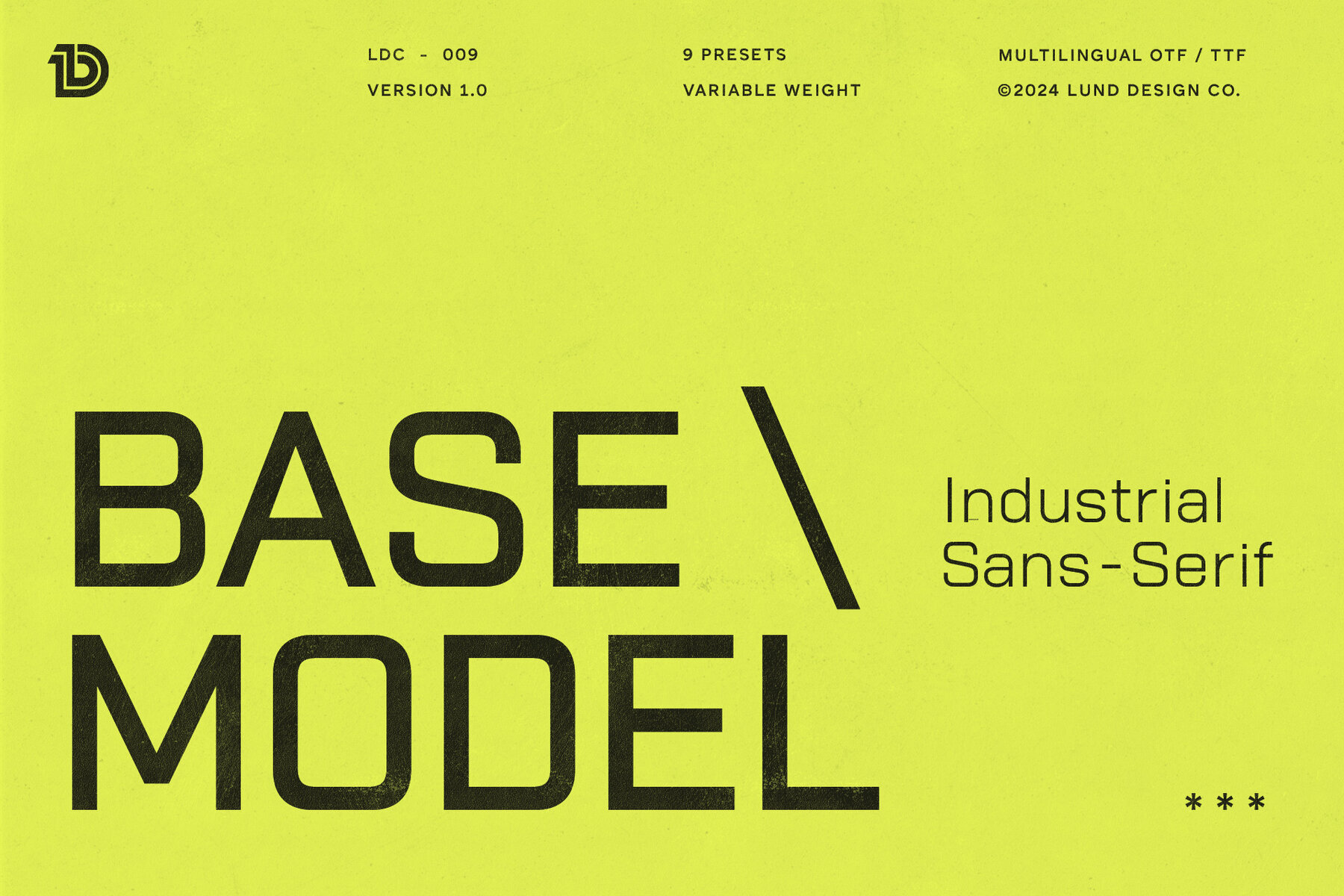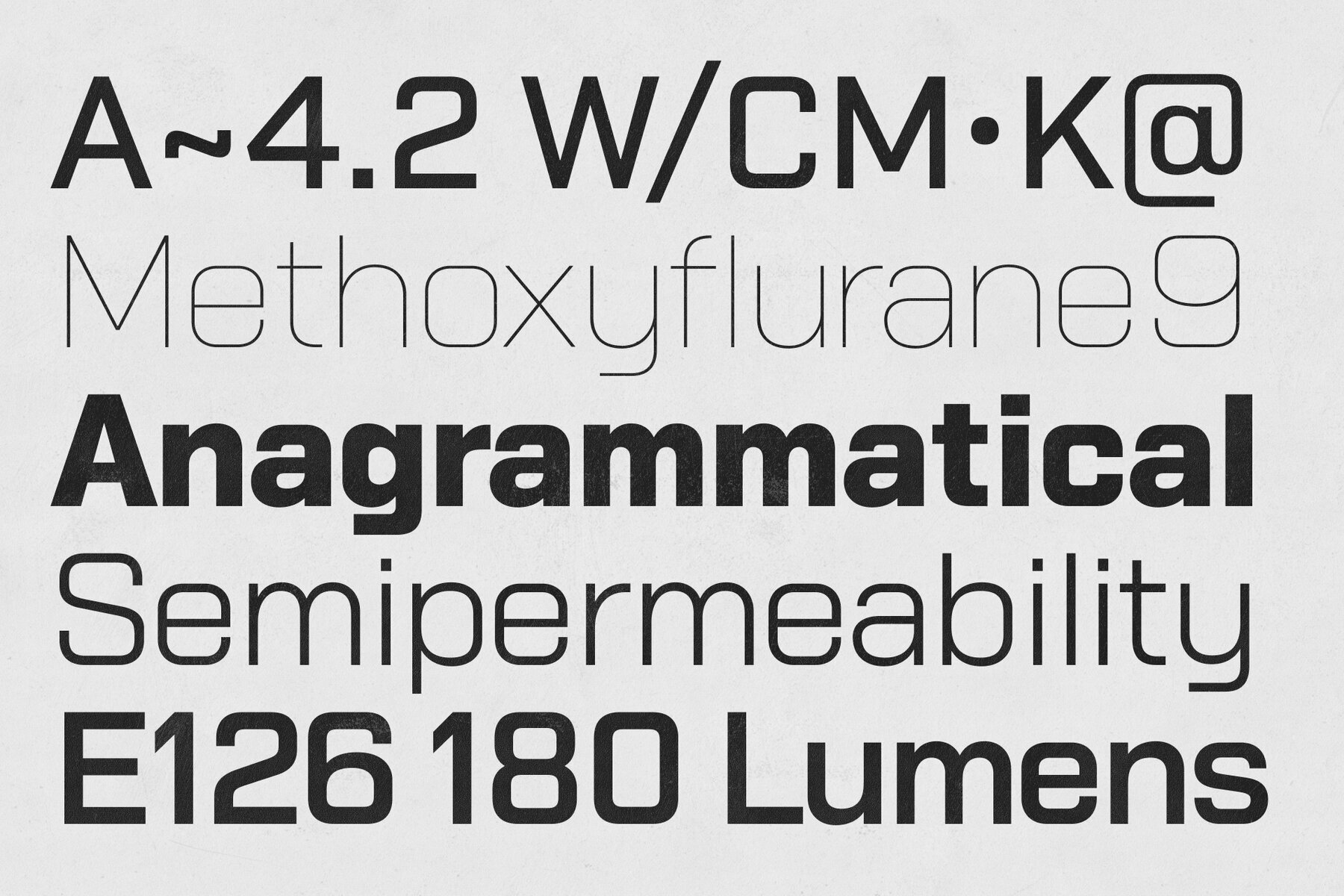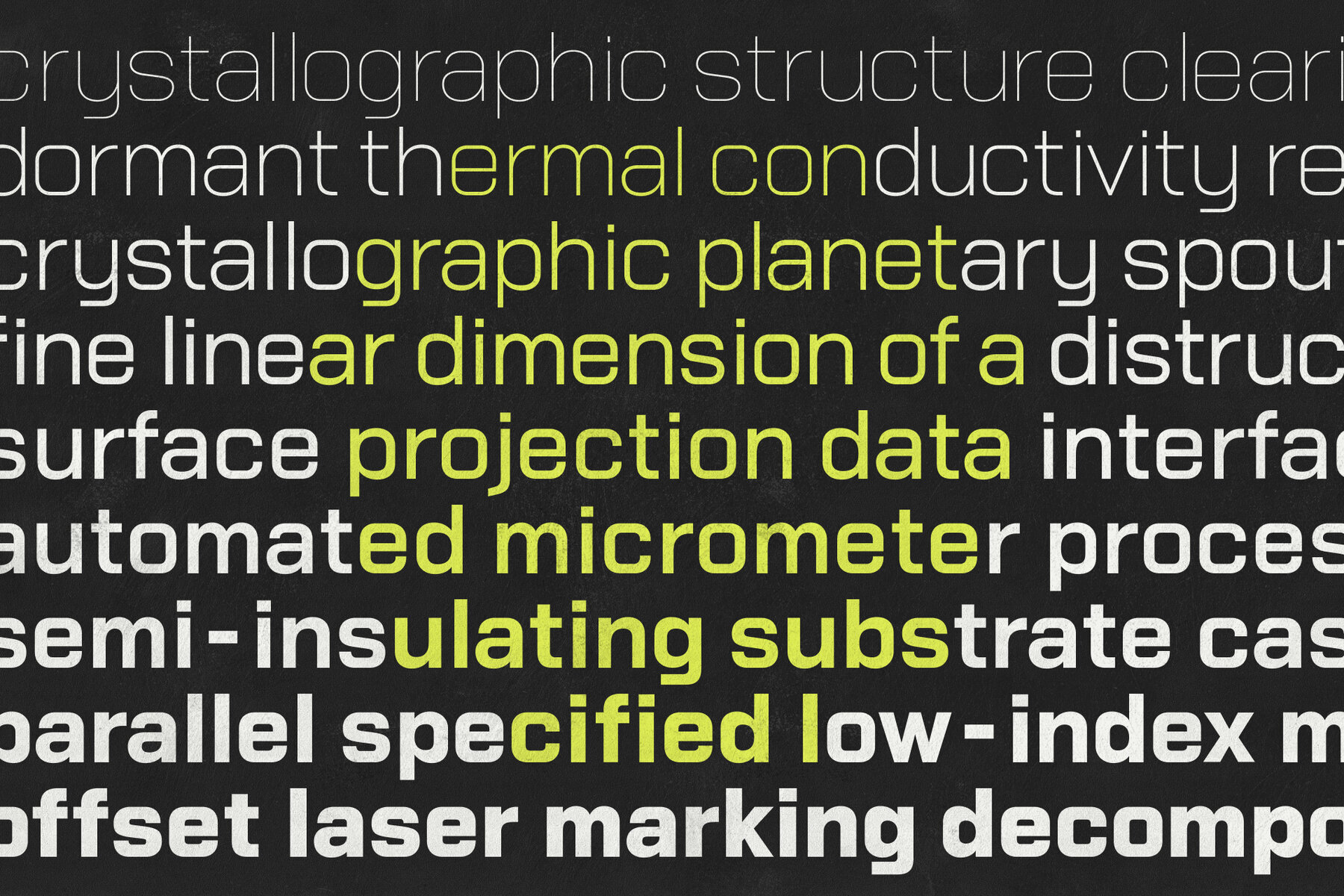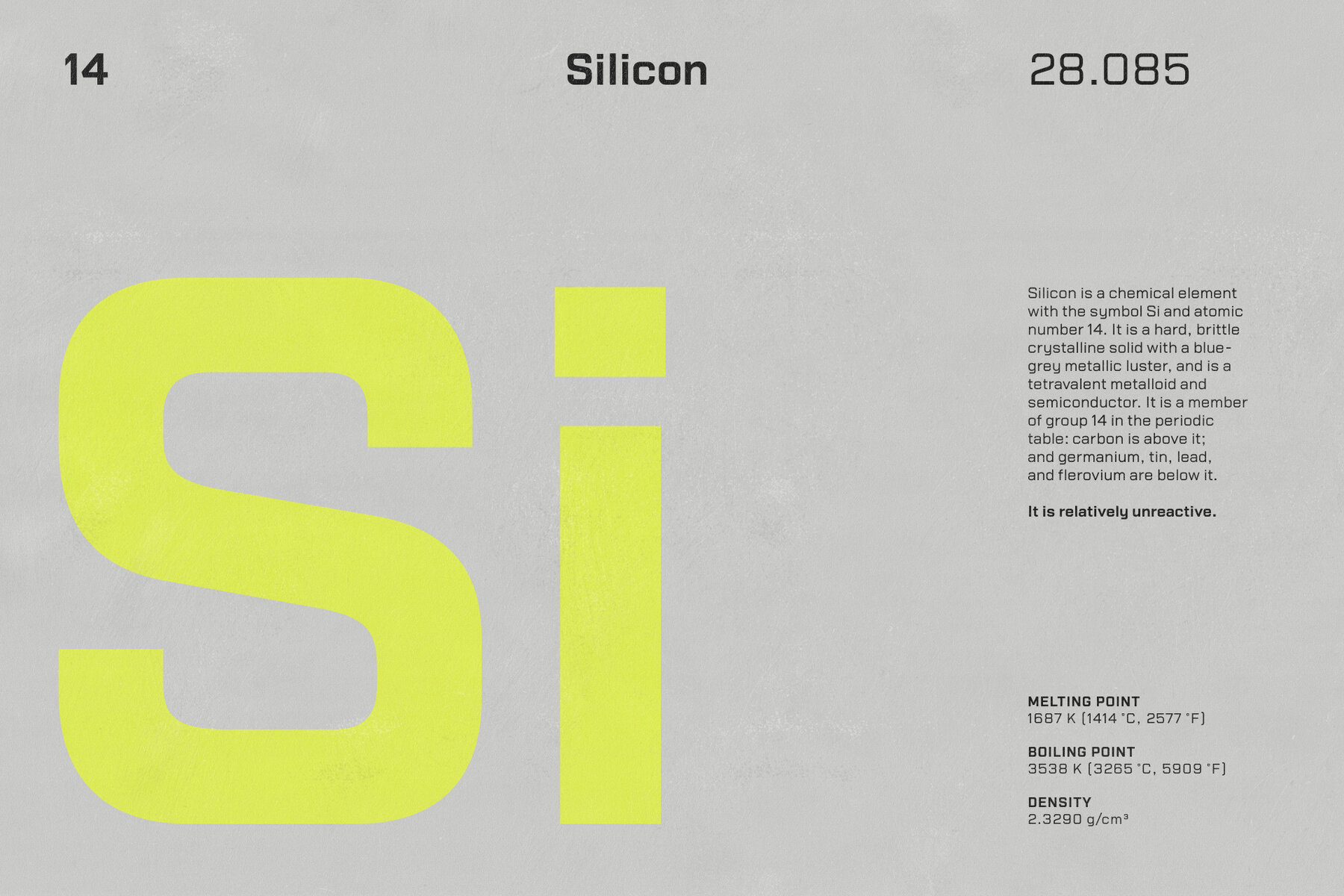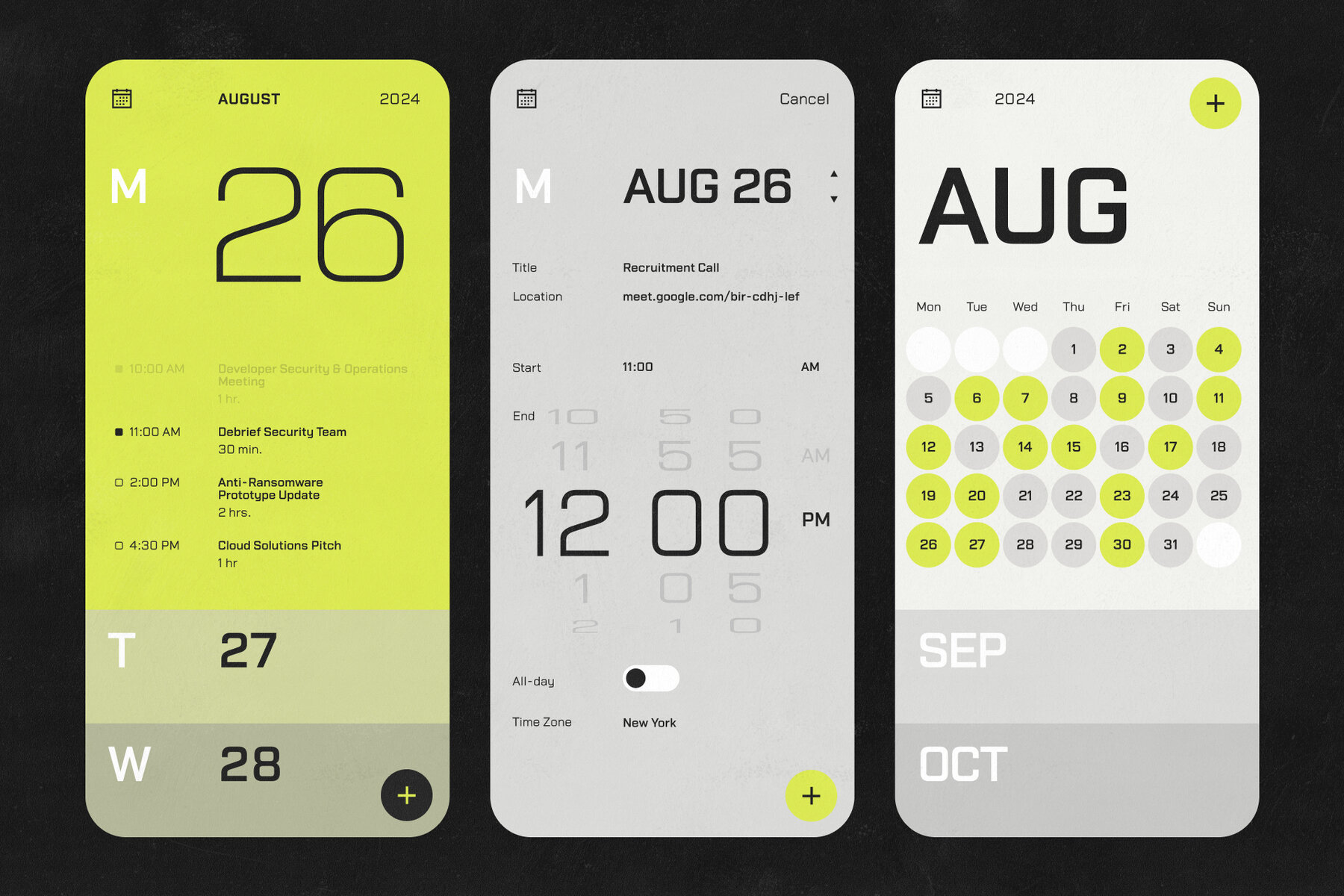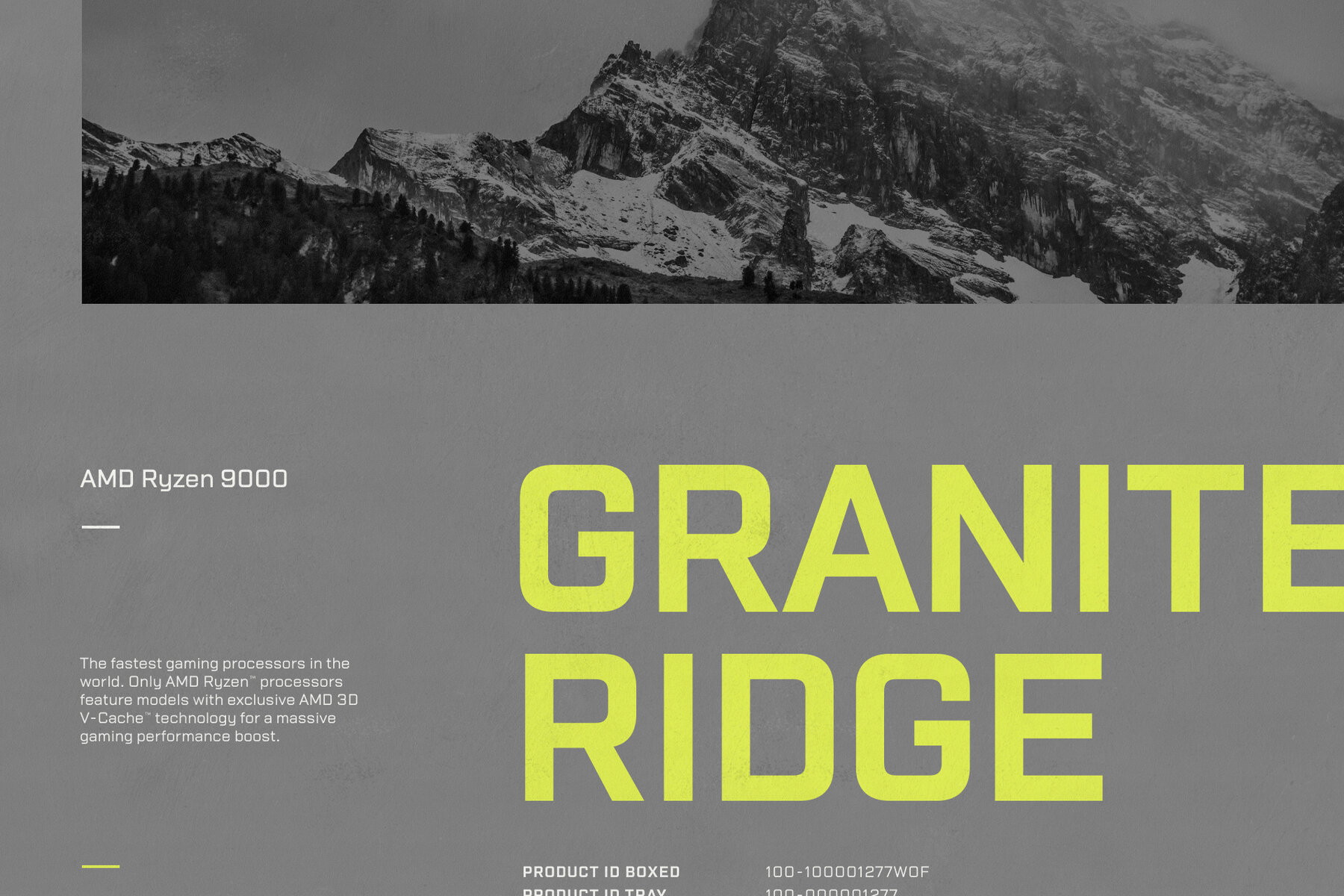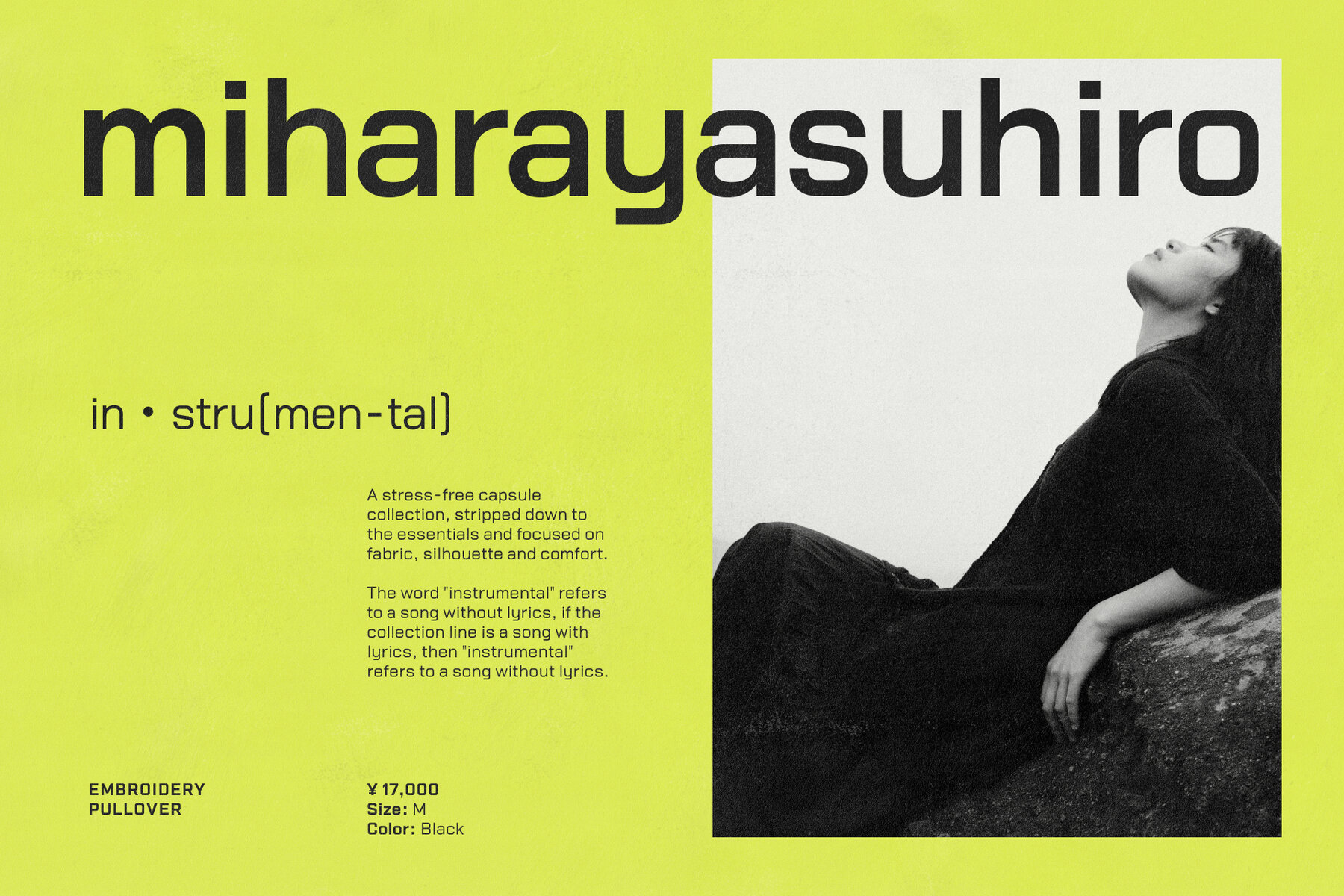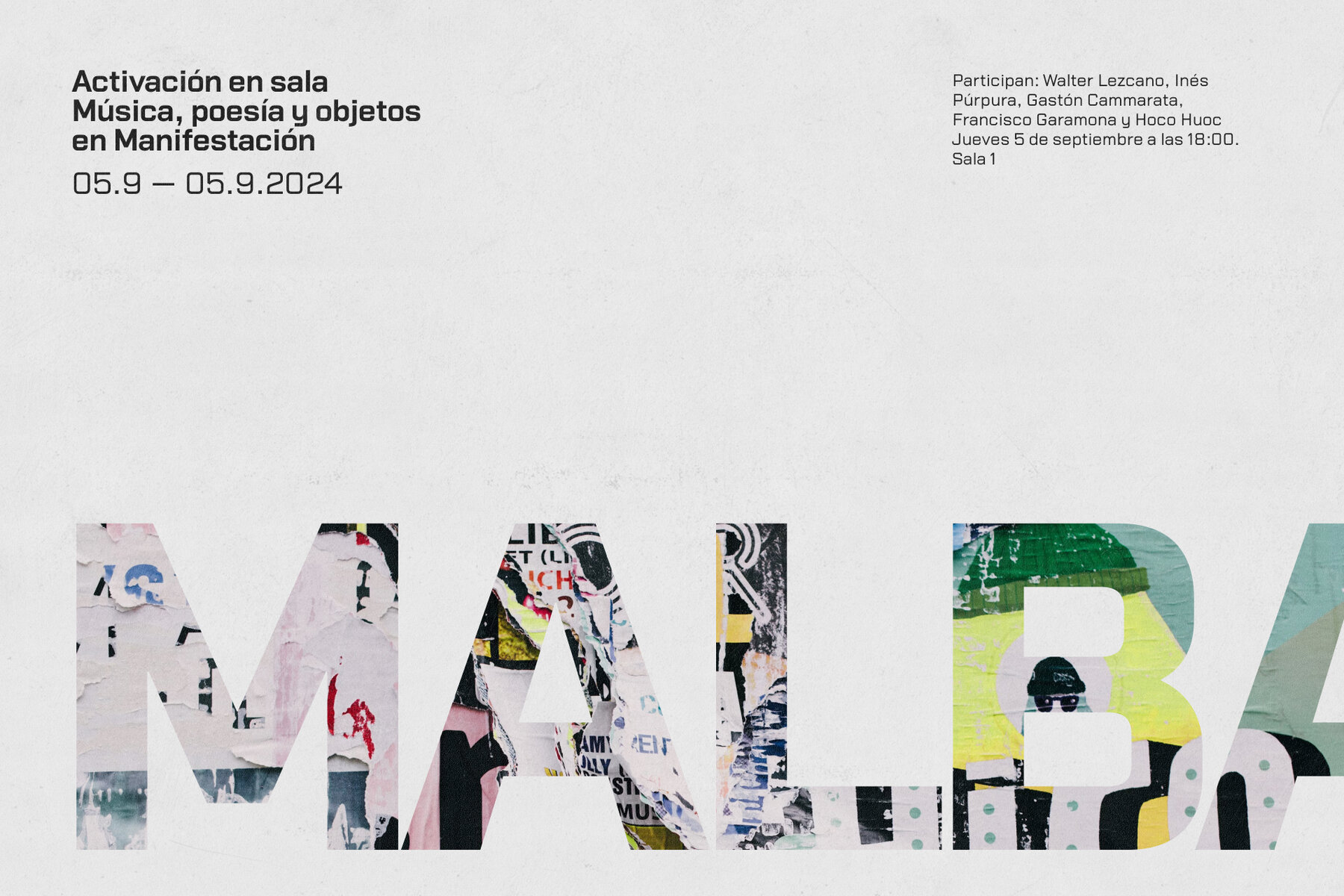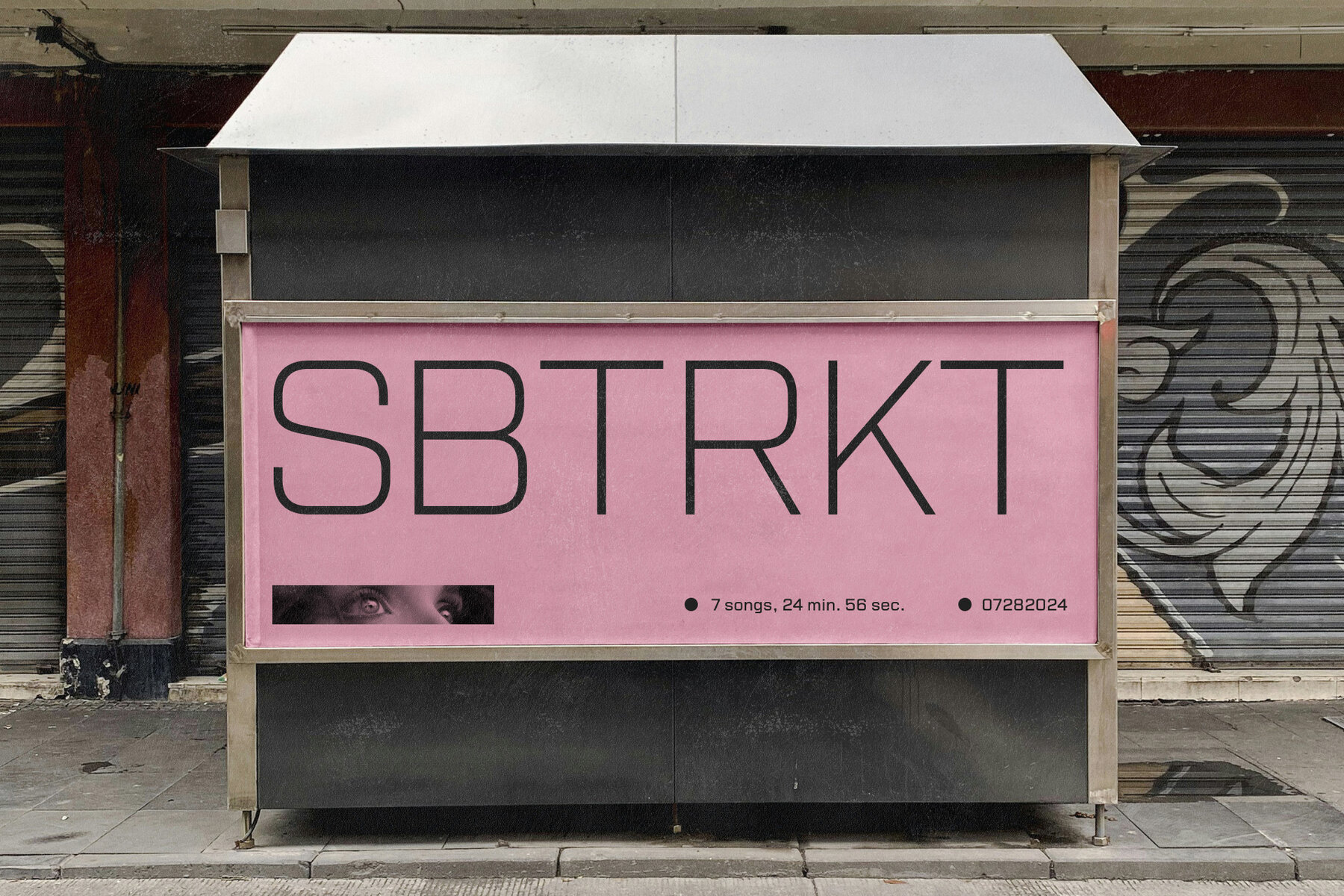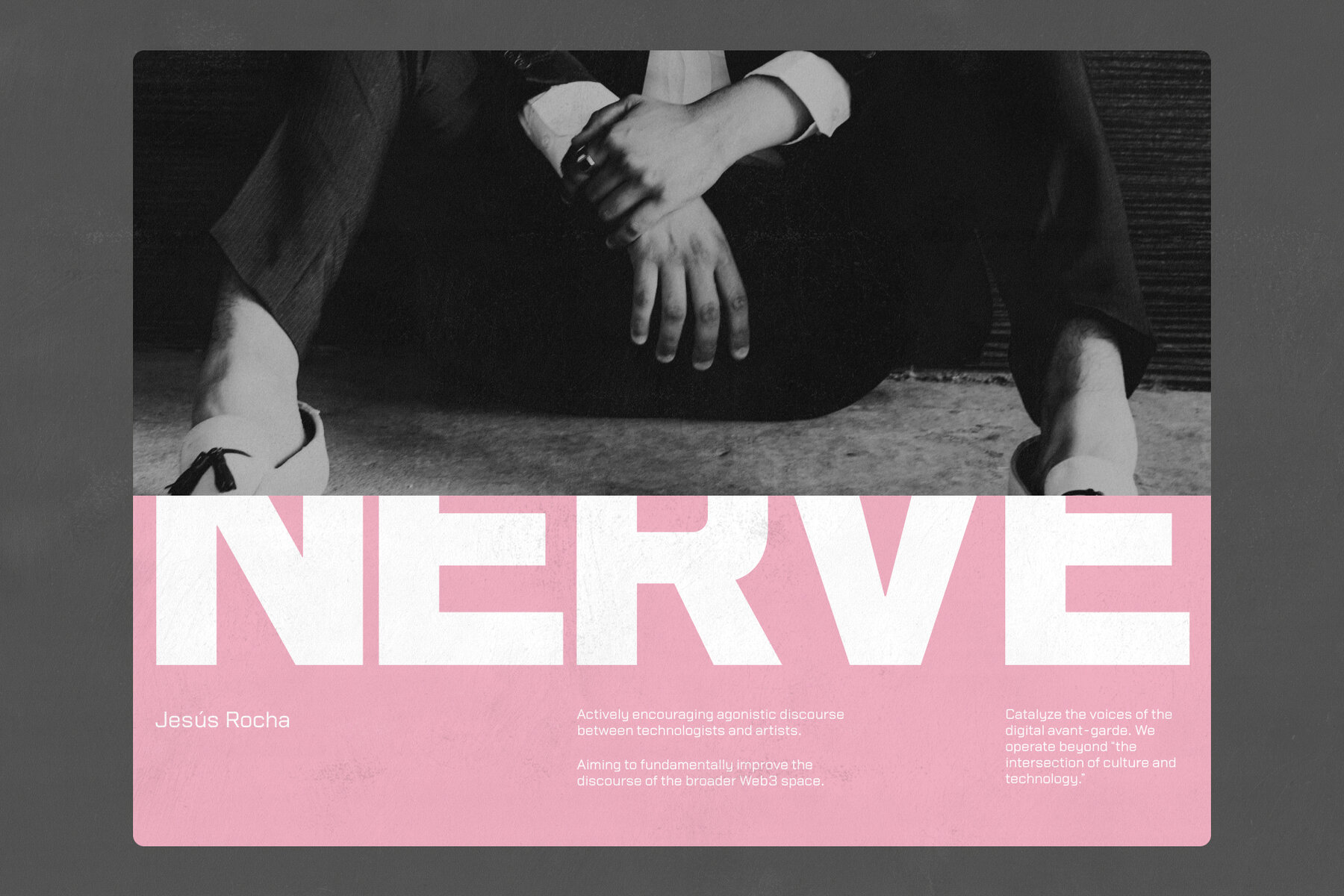
Base Model Font
Base Model is an industrial square sans serif with variable weights. Characterized by its strong, geometric forms and modern minimalism, this versatile typeface is perfect for headlines, branding, and UI. Its thinner weights give a sleek, tech-forward appearance, while the thicker versions provide bold headline text. Whether in large display sizes or smaller captions, Base Model maintains a clean, professional look. The font includes accents and supports multilingual characters, making it an excellent choice for global projects.